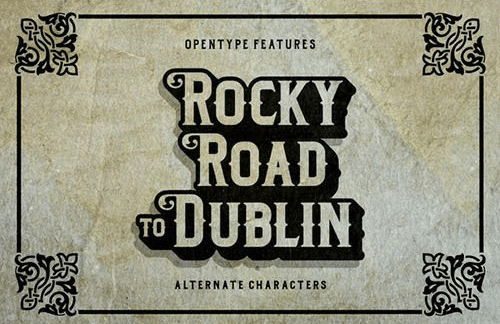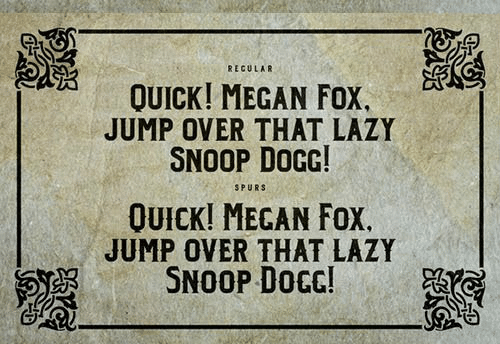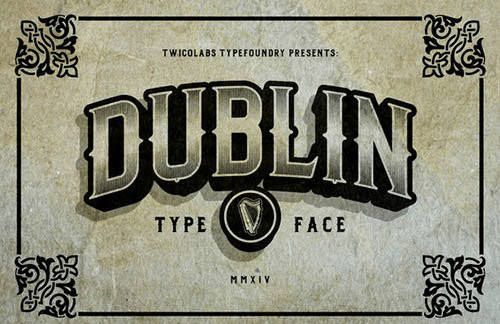
Dublin is a typeface that inspired from old and vintage road-sign letters in England / Great Britain.
Suits best for vintage / classic designs, logo, signage, headline, etc. Available in two versions; Regular and Spurs. Each files contains: uppercase, lowercase, numerals, basic punctuations and some alternate characters.